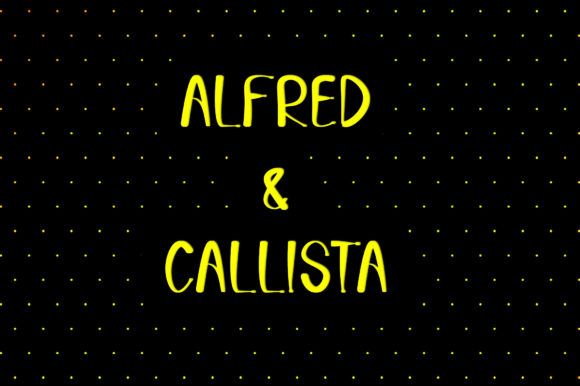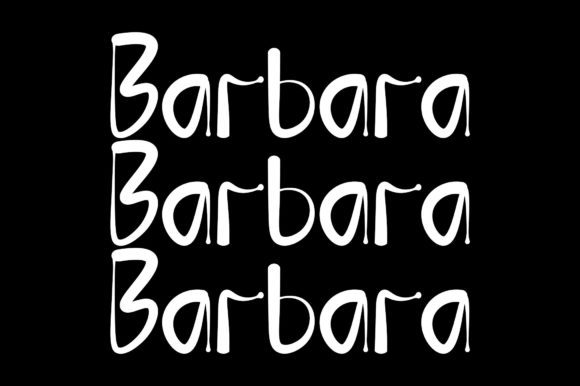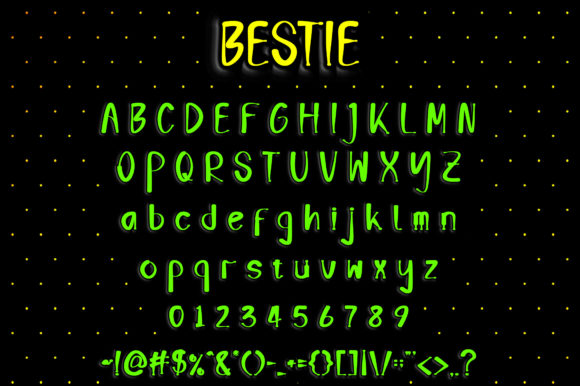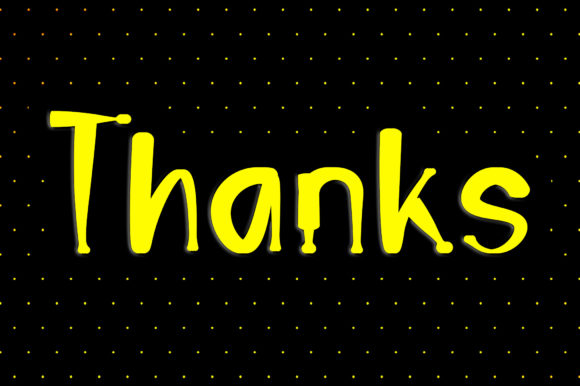
The Perfect Pair: Elevate Your Designs with the Bestie Font
Remember the moment when you stumbled upon the perfect font for your design project? It’s like finding a missing piece of a puzzle, and suddenly, everything falls into place. For designers, this feeling is all too familiar. That’s why we’re excited to introduce you to the Bestie Font, a cool, modern display font that’s about to become your new go-to companion.
Whether you’re working on a branding project, a social media campaign, or a personal creative venture, the Bestie Font has the potential to elevate your creations to the next level. Its versatility and modern aesthetic make it an incredibly valuable asset to any designer’s library. With the Bestie Font, you’ll be able to convey your message with style and sophistication, setting your work apart from the crowd.
Key Features of Bestie Font
- Font Family: Bestie is a sans-serif font family designed for digital use.
- Unique Characteristics: Bestie features a clean, modern design with rounded corners and subtle rounded edges, giving it a friendly and approachable feel.
Designer Review: Bestie Font
Overall, I found the Bestie font to be an interesting addition to any design project. It’s playful and bubbly, perfect for capturing a friendly vibe.
- Unique personality: The Bestie font stands out from more common sans-serif fonts, making it a great choice for brands looking to be more memorable.
- Customization options: The font comes in various weights and styles, giving designers flexibility in how they apply it to their project.
- Readability: At smaller font sizes, the Bestie font can become difficult to read, which may limit its use in certain contexts.
- Formality: Due to its playful nature, the Bestie font may not be suitable for formal or professional applications.
- Overuse: The font’s distinctive look can become overwhelming if used excessively, which may detract from the overall design.
In conclusion, while the Bestie font is not perfect, it has its strengths and can be a valuable addition to a designer’s toolkit. With careful application and consideration of its limitations, it can help create engaging and memorable designs.
Tips for Getting the Most Out of Bestie Font
Bestie Font is perfect for creating playful and whimsical designs. Here are some tips to get the most out of it:
- Use Bestie Font for titles and headings to add a touch of personality to your design.
- Pair Bestie Font with other playful fonts to create a unique and eye-catching design. Alternatives to Bestie Font